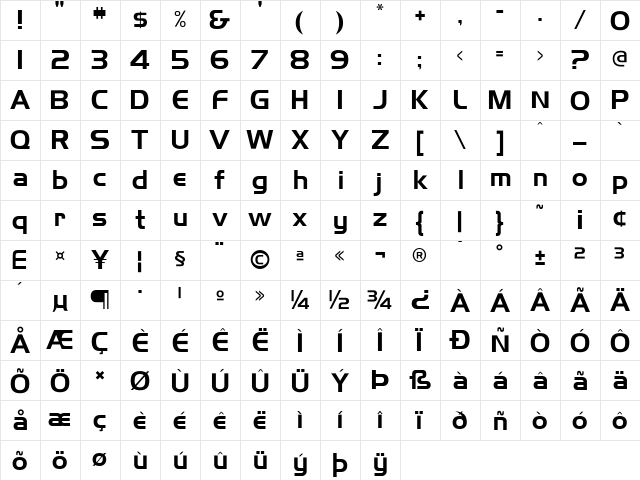
HighlandGothicFLF Regular Font Preview
HighlandGothicFLF Regular
Design Context for HighlandGothicFLF Typeface
HighlandGothicFLF has the quiet confidence of well-executed sans-serif typography: versatile, unobtrusive, and dependable at any size.
Font Pairing: Works well alongside a characterful serif or display font that can carry the expressive load while HighlandGothicFLF handles the functional copy.
Pro Tip: Pair HighlandGothicFLF with a display or serif font for headlines — its neutral character makes it an excellent supporting player in complex typographic systems.